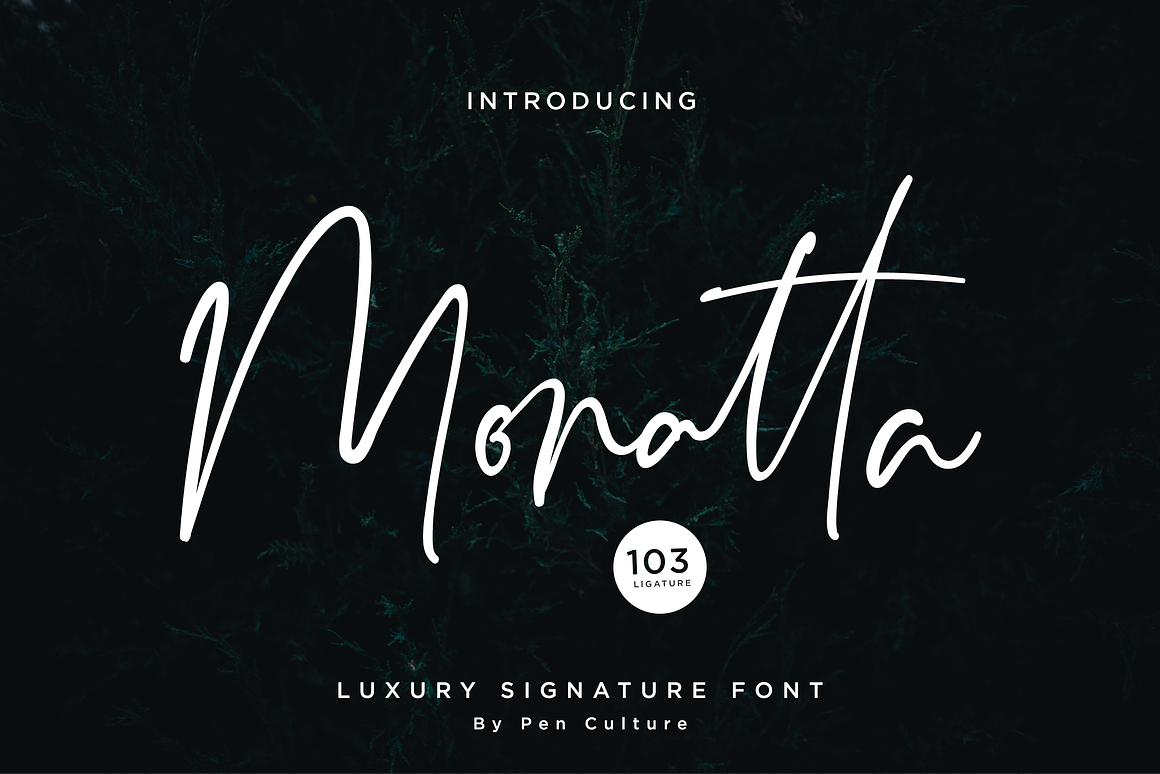
Monatta - Luxury Signature Font
The Monatta - Luxury Signature Font excels in premium design applications including high-end fashion branding, luxury hotel identities, exclusive jewelry packaging, upscale restaurant logos, prestigious business cards, elite wedding invitations, luxury car branding, premium cosmetics labels, five-star hospitality signage, and sophisticated corporate identities. Its opulent script style makes it perfect for projects requiring exceptional elegance that communicates exclusivity and establishes ultra-premium positioning with affluent audiences seeking uncompromising quality.
What makes the Monatta - Luxury Signature Font truly exciting is its masterful embodiment of pure luxury through sophisticated letterform design. The font features exquisitely crafted characters with refined flourishes, perfect proportions, and seamless connections that create an atmosphere of absolute elegance. Each letterform displays exceptional attention to detail with graceful curves, premium spacing, and aristocratic presence that suggests the finest handwriting of luxury artisans. The font's sophisticated rhythm and flawless execution give text an unmistakably luxurious quality that commands respect and admiration.
The Monatta - Luxury Signature Font family typically includes regular weight with extensive character coverage, featuring uppercase and lowercase letters, numerals, punctuation marks, and international characters. The typeface often incorporates premium stylistic alternates, contextual ligatures, and ornamental swashes that enhance its luxury signature appeal. These additional glyphs provide designers with sophisticated options to customize text appearance and achieve more refined, premium typography that meets the highest standards of luxury design.
This distinguished luxury font captivates discerning audiences through its unparalleled ability to convey prestige and exclusivity. Unlike standard script fonts that lack refinement, Monatta - Luxury Signature Font maintains the highest level of sophistication while delivering exceptional visual impact. The font's premium character makes it essential for luxury brands and high-end projects where excellence and prestige are fundamental requirements for success in competitive luxury markets.